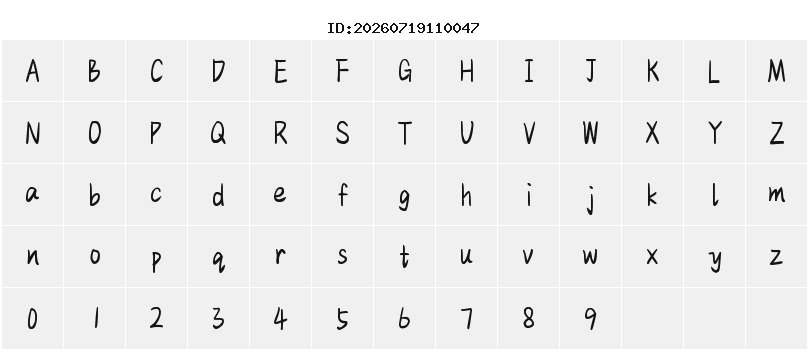
YEFONTManHuaTi 標準 Preview
• Font Name: YEFONTManHuaTi 標準
• Full Font Name: 也字工廠漫畫體 標準
About YEFONTManHuaTi 標準.TTF
YEFONTManHuaTi 標準.TTF is a modern, elegant sans-serif font designed for ultimate readability and visual harmony. Perfect for branding, headlines, web design, and print materials.